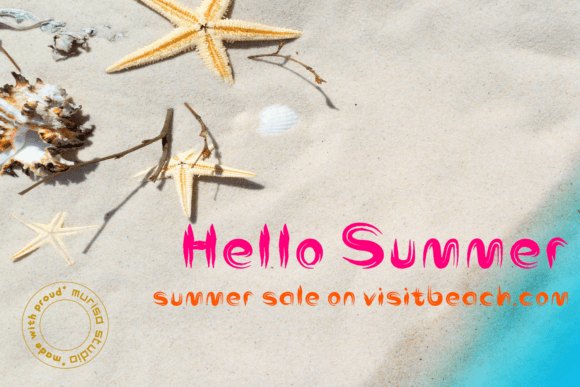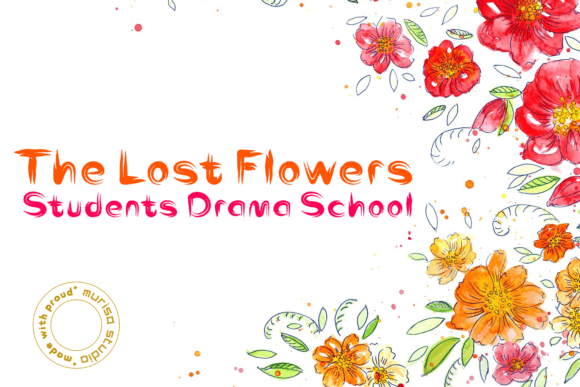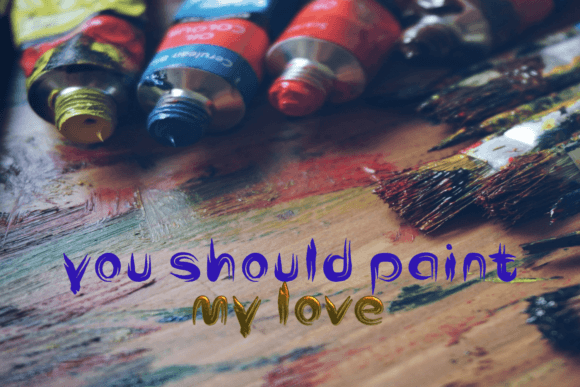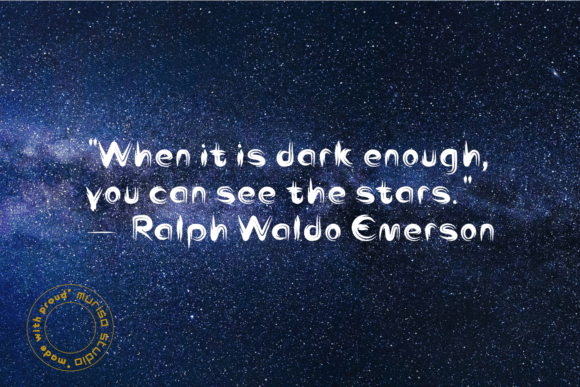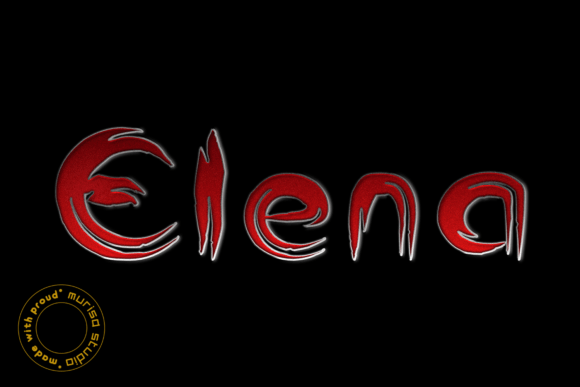
Introduction to Murisa Elena Font
As you sit at your desk, surrounded by papers and paintbrushes, you finally find the perfect moment to unleash your creativity. The blank canvas stares back at you, waiting for your brushstrokes to bring it to life. It’s in these moments that we remember why we started creating in the first place – to express ourselves and bring beauty to the world.
For designers, finding the right font can be the key to unlocking that perfect creative expression. That’s where the Murisa Elena Font comes in – a stunning display font that’s as beautiful as a brush stroke on canvas. With its high-quality design and transparent background, it’s the perfect addition to any design project.
Whether you’re working on a personal or professional project, the Murisa Elena Font is a valuable resource that can elevate your design to the next level. And the best part? It’s available for free download, making it an accessible design resource for anyone looking to add a touch of elegance to their creative project.
Key Features of Murisa Elena Font
- High-quality, elegant script font ideal for creative projects and design resources.
- Transparent background, making it easy to place over any image or design without a white box.
- Medium to large font size, ranging from 12 to 72 points, with a high resolution of 300 DPI for crisp and clear display.
- Unique, handwritten style with a touch of sophistication, making it suitable for wedding invitations, quotes, and other creative projects.
Honest Review: Murisa Elena Font
I recently came across the Murisa Elena Font, a high-quality design resource that’s perfect for creative projects. One of the standout features of this font is its transparent background, making it incredibly versatile for use in a variety of design contexts.
Here are some things that work well about the Murisa Elena Font:
- ✨ Beautiful, elegant design that’s perfect for branding and typography projects
- ✨ Highly customizable, with a wide range of font sizes and styles to choose from
However, I did encounter some limitations with the font:
- ⚠️ Limited character set, which may not be suitable for projects that require a wide range of characters
- ⚠️ Not suitable for use in situations where a bold, attention-grabbing font is required
Overall, I’m really impressed with the Murisa Elena Font. It’s a great design resource for anyone looking to add a touch of elegance and sophistication to their creative project. With its high-quality design and free download, it’s definitely worth checking out.
Murisa Elena Font
The Murisa Elena Font is a high-quality, elegant script font perfect for any creative project. It’s available for free download, making it an excellent design resource for designers and artists.
Tips for Getting the Most Out of Murisa Elena Font
To get the most out of Murisa Elena Font, use it on a transparent background to create a beautiful, high-contrast effect. You can also pair it with other fonts to create a unique and eye-catching design.
Murisa Elena Font is perfect for a variety of creative projects, including wedding invitations, birthday cards, and social media graphics. Its elegant and sophisticated style makes it ideal for use in branding and marketing materials as well.